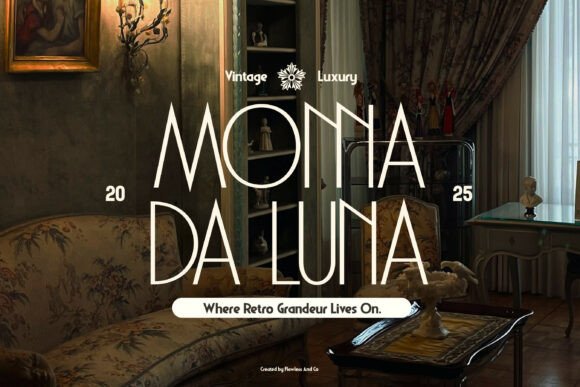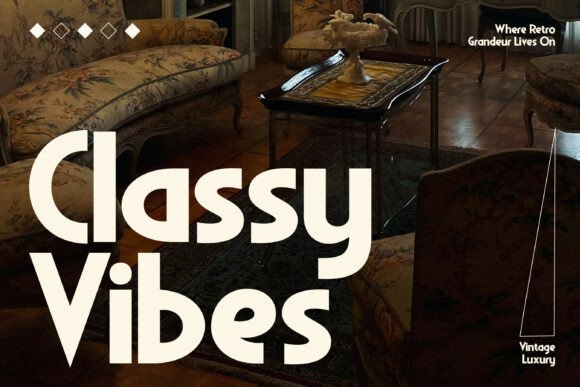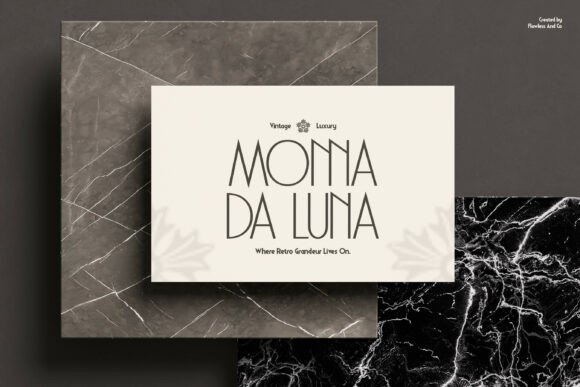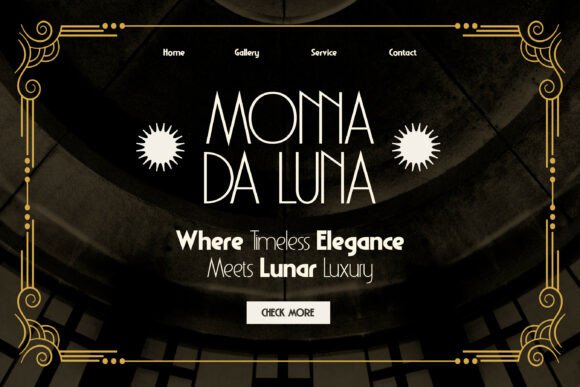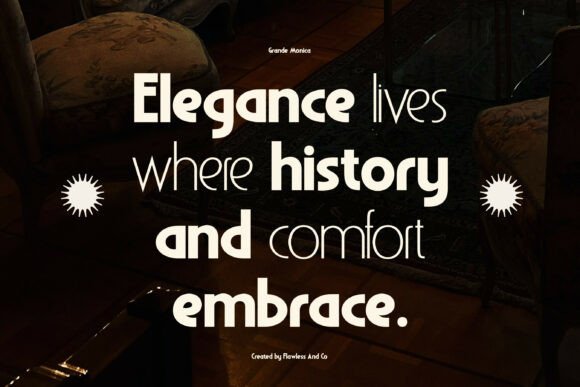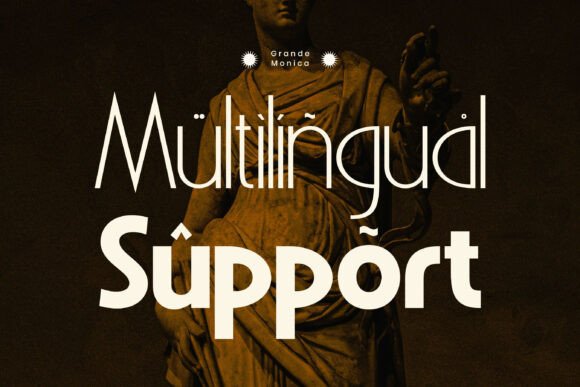
Introducing Grande Monica Font: Elevate Your Designs with Timeless Luxury
In the world of typography, fonts play a crucial role in conveying the tone and personality of a design. For designers and crafters seeking to add a touch of sophistication and elegance to their projects, Grande Monica Font is an exceptional choice. This refined display sans serif font seamlessly blends modern Art Deco aesthetics with timeless vintage luxury, making it perfect for designs that demand character, confidence, and visual impact.
Key Features of Grande Monica Font
Grande Monica Font boasts two versatile styles, Regular and Bold, allowing designers to experiment with different visual hierarchies and emphasis. The font’s tall proportions, clean geometry, and distinctive letterforms work in harmony to create a sense of luxury and refinement. Whether you’re working on a branding project, packaging design, or editorial layout, Grande Monica Font is designed to deliver a strong visual impact while maintaining elegance and clarity.
Modern Art Deco Aesthetics Meets Timeless Vintage Luxury
Grande Monica Font’s design is deeply rooted in the Art Deco movement, characterized by its geometric shapes, clean lines, and ornate details. However, this font also incorporates timeless vintage elements, resulting in a unique blend of modern sophistication and classic elegance. The outcome is a font that feels both contemporary and nostalgic, making it perfect for designs that require a sense of heritage and luxury.
Versatility and Legibility
One of the standout features of Grande Monica Font is its versatility. The font’s clean geometry and simple letterforms ensure excellent legibility, even at smaller sizes. This makes it suitable for a wide range of applications, from headlines and titles to body text and captions. Additionally, the font’s two styles (Regular and Bold) provide designers with the flexibility to create visual hierarchies and add emphasis to specific elements of their design.
Design Applications for Grande Monica Font
Grande Monica Font’s sophisticated and elegant design makes it perfect for a variety of applications, including:
• Branding and Logo Design: Create a lasting impression with Grande Monica Font’s distinctive letterforms and luxurious feel.
• Packaging Design: Elevate your packaging designs with a font that exudes sophistication and elegance.
• Editorial Design: Use Grande Monica Font to add a touch of luxury to your editorial layouts, such as magazines, newspapers, and books.
• Advertising and Marketing: Make a bold statement with Grande Monica Font’s confident and eye-catching design.
Why Choose Grande Monica Font?
With so many fonts available, why choose Grande Monica Font? Here are just a few reasons:
• Unique Blend of Styles: Grande Monica Font’s blend of modern Art Deco aesthetics and timeless vintage luxury sets it apart from other fonts.
• Exceptional Legibility: The font’s clean geometry and simple letterforms ensure excellent legibility, even at smaller sizes.
• Versatility: Grande Monica Font’s two styles (Regular and Bold) provide designers with the flexibility to create visual hierarchies and add emphasis to specific elements of their design.
Grande Monica Font is an exceptional choice for designers and crafters seeking to add a touch of sophistication and elegance to their projects. With its refined display sans serif design, versatile styles, and timeless luxury feel, this font is perfect for designs that demand character, confidence, and visual impact. Whether you’re working on a branding project, packaging design, or editorial layout, Grande Monica Font is sure to elevate your designs to new heights.